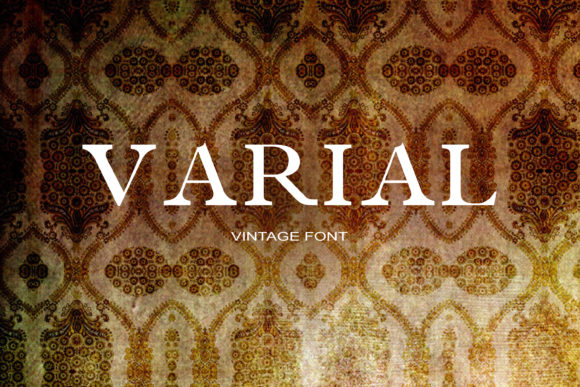
Journey through the world of typography with Varial, a classic and timeless serif font crafted with meticulous attention to detail. Embrace the elegance of its curves and the sophistication of its serifs, designed to evoke a sense of nostalgia and refinement.
With Varial, every word becomes a work of art, inviting you to immerse yourself in the beauty of language. Its clean lines and graceful strokes create a captivating visual experience, whether you're designing a wedding invitation, a timeless logo, or an enchanting book cover.
Feel the warmth of Varial's embrace as it adds a touch of charm to your creative projects. Its classic style effortlessly blends with modern aesthetics, ensuring that your designs stand the test of time. Let the timeless beauty of Varial elevate your words and transport your audience to a realm of elegance and sophistication.
Varial's versatility knows no bounds, lending itself seamlessly to a multitude of design applications. Craft eye-catching headlines that command attention, design elegant brochures that exude professionalism, or create social media posts that capture the imagination. Unleash your creativity and let Varial guide you to typographic excellence.
The creators of Varial, DmDesignsStoreArt, have poured their passion and expertise into every curve and stroke, resulting in a font that exudes an air of timeless beauty. Discover the charm of Varial and embark on a creative journey where elegance meets modernity.
Immerse yourself in the world of Varial and witness the magic of typography come to life. Its classic serif style, meticulously crafted by DmDesignsStoreArt, is a testament to the enduring power of timeless design.